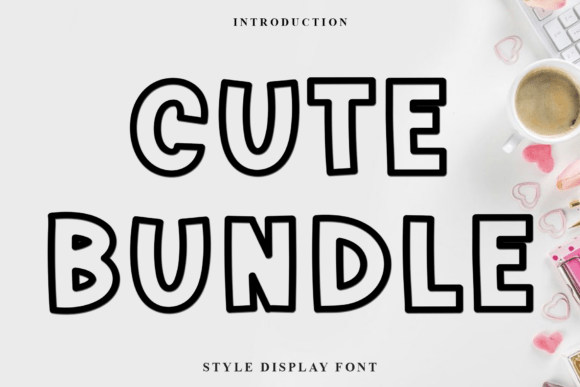
The Power of Playful Typography: Unlocking the Magic of Cute Bundle Font
Do you remember that moment when you finally decided to turn your passion into a side hustle? Maybe it was when you created a set of handmade planner stickers, or when you designed a cute logo for your friend’s new business. Whatever it was, you likely felt a rush of excitement and creativity – and that’s exactly what the Cute Bundle Font is all about.
This adorable display font is a game-changer for designers who want to add a playful touch to their projects. With its bold, rounded letterforms and charming hand-drawn feel, the Cute Bundle Font is perfect for crafting, branding, social media graphics, and kids’ projects. Its versatility and charm make it a valuable asset for any designer looking to add a friendly and fun vibe to their work.
Cute Bundle Font Key Features
• Unique Characteristics: Cute Bundle Font features a unique, playful design with rounded edges and soft lines, making it perfect for creating a child-friendly or whimsical atmosphere in designs.
Cute Bundle Font Review
Overall, I think Cute Bundle Font is a solid choice for designers who need a friendly, approachable font for their projects. ✨ The font’s rounded edges and soft lines make it perfect for children’s books, invitations, and other materials where a gentle touch is needed.
The font’s versatility is another strong point. ✨ It comes in a range of weights and styles, making it easy to customize to suit your project’s needs. I also appreciate the various languages supported, which opens up possibilities for international clients.
However, I do have a few concerns. ⚠️ The font’s bold weight can sometimes appear slightly inconsistent, and I’ve noticed some users reporting issues with the font’s rendering on certain platforms.
Another limitation is the relatively limited character set. ⚠️ While it’s not a deal-breaker, it might be a problem for designers who need to work with languages that require a broader character range.
• Works well for children’s materials, invitations, and other projects that require a friendly touch
• Comes in a range of weights and styles for customization
• Supports multiple languages
• May have issues with bold weight consistency
• Has a relatively limited character set
Cute Bundle Font Practical Application Guide
For the most out of Cute Bundle Font, use it for designs that require a playful and whimsical feel, such as children’s party invitations, greeting cards, and social media graphics. You can also use it for branding and logo designs that require a cute and approachable tone.
Some common use cases for Cute Bundle Font include:
• Children’s party invitations and decorations
• Greeting cards and gift tags
• Social media graphics and posts
• Branding and logo designs